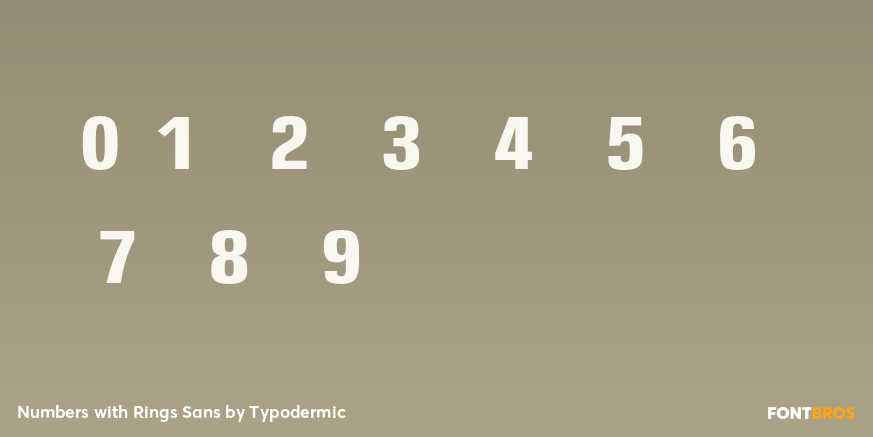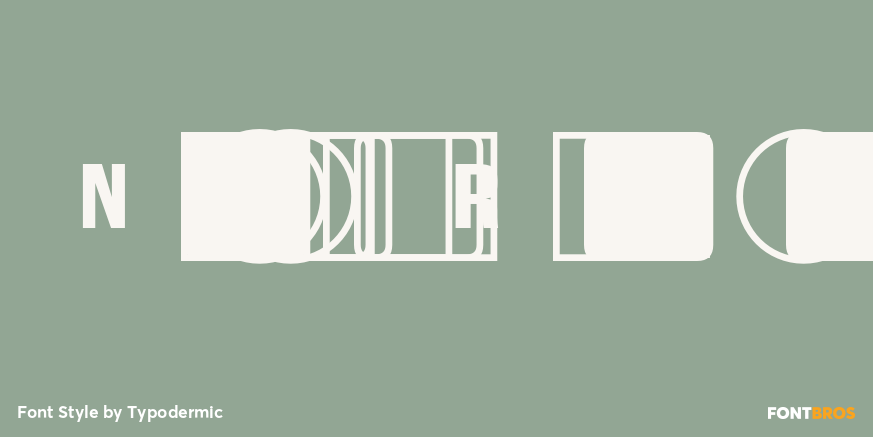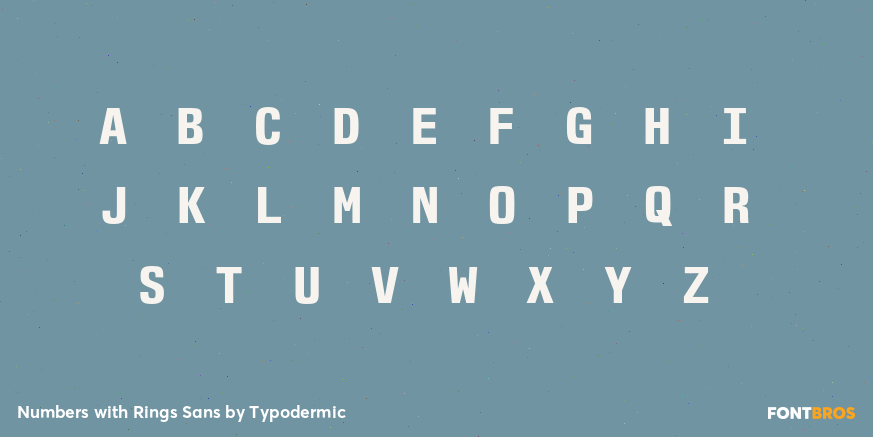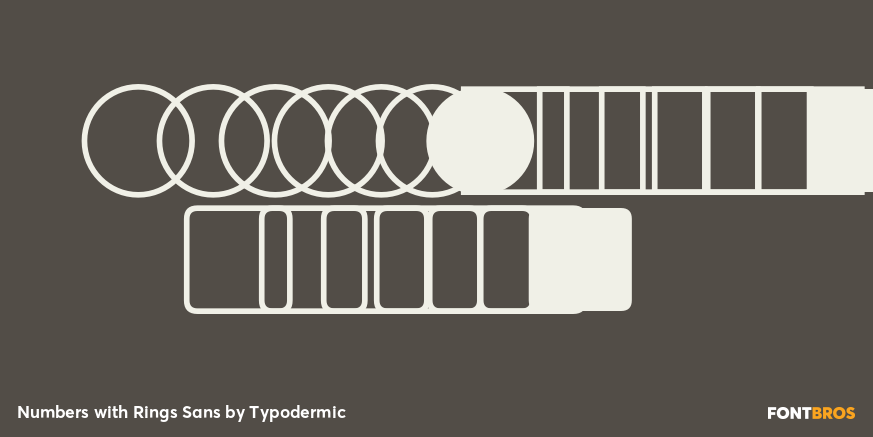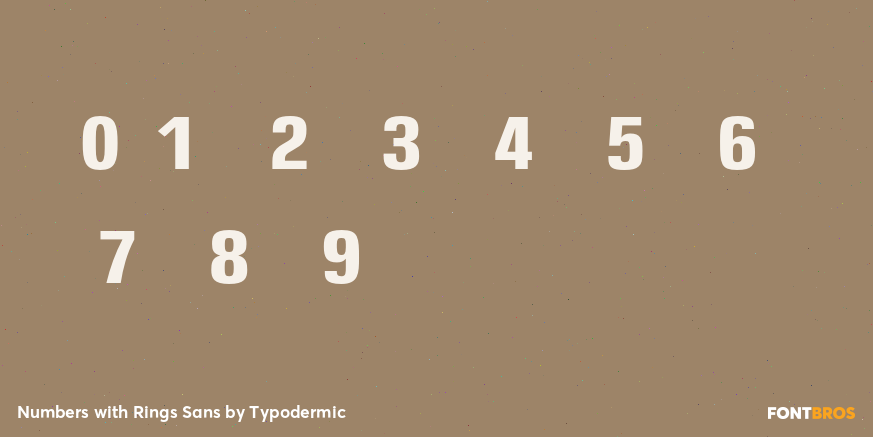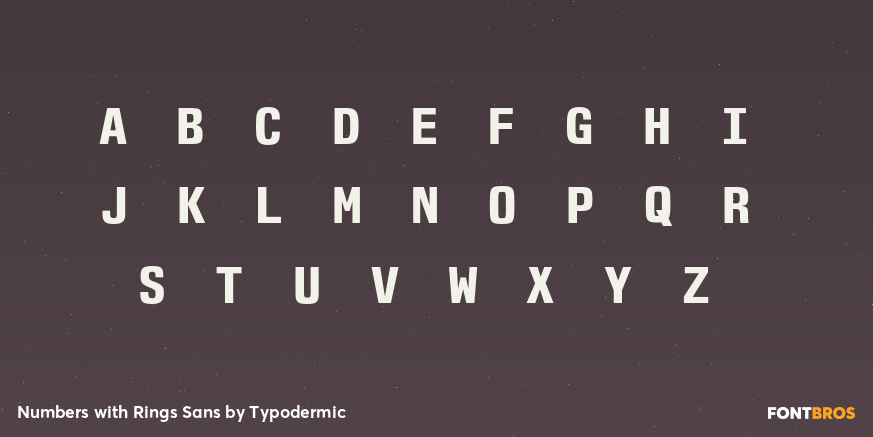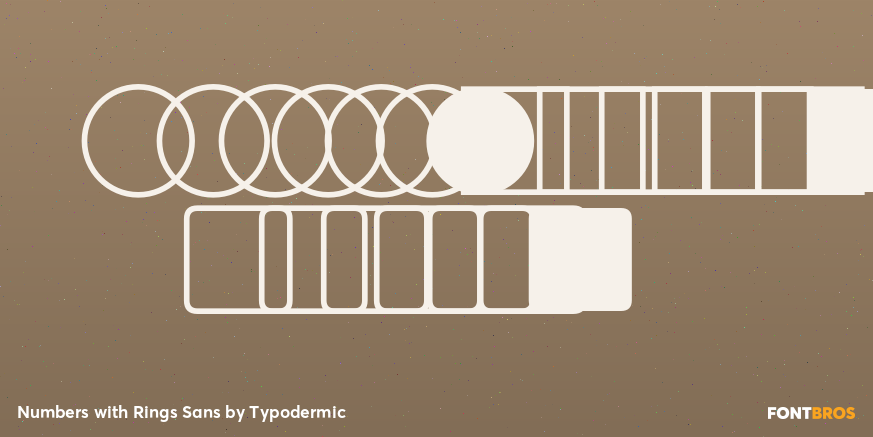
Numbers with Rings Sans
Buy NowNumbers with Rings Sans pairs the automated ring system with bold, condensed sans serif characters. Its clean, direct voice keeps one- to six-character numbers, letters, question marks, and alphanumeric identifiers easy to scan. The same alternate enclosure shapes and solid background component are available for varied marker systems and layered color treatments.
Use Sans for exploded-view callouts, assembly steps, service manuals, parts catalogs, signage markers, and field-service interfaces where clarity takes priority. It is the most neutral of the three styles, making it a dependable choice when ringed identifiers must sit beside technical text, dimensions, and diagrams.